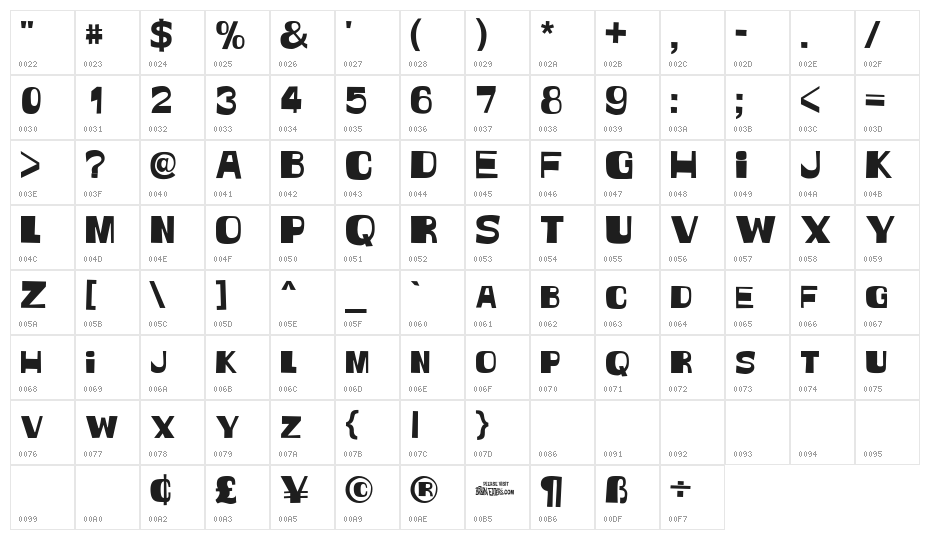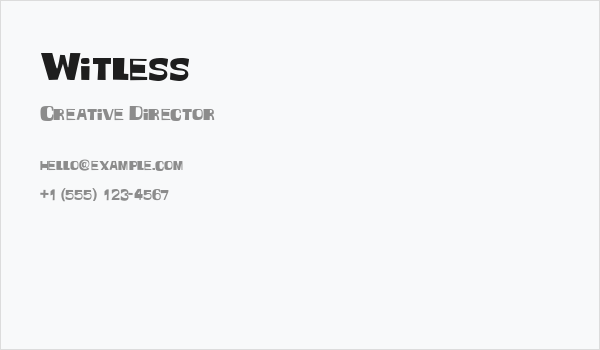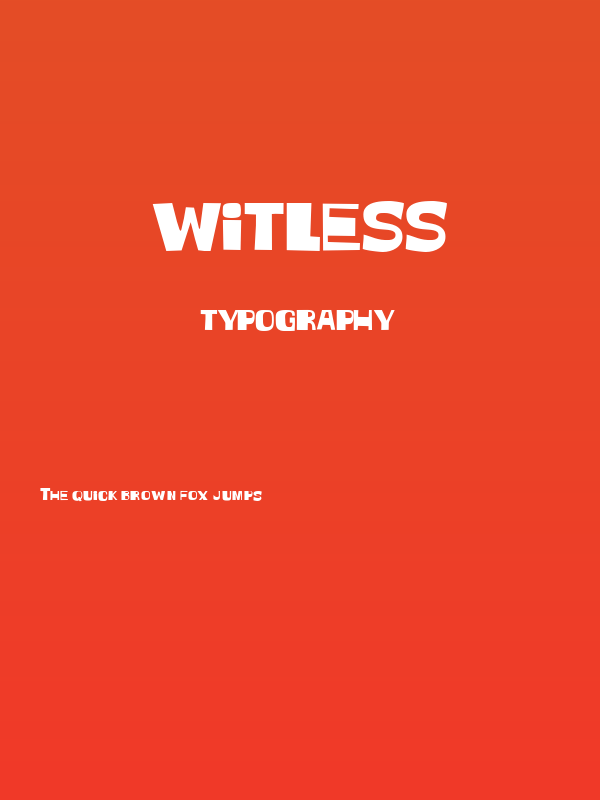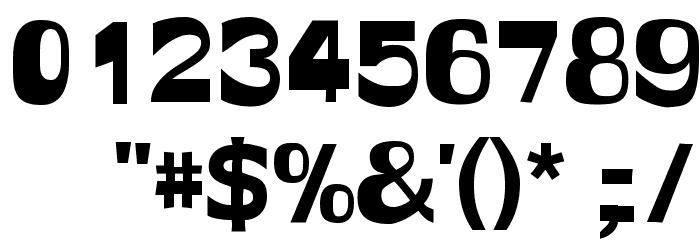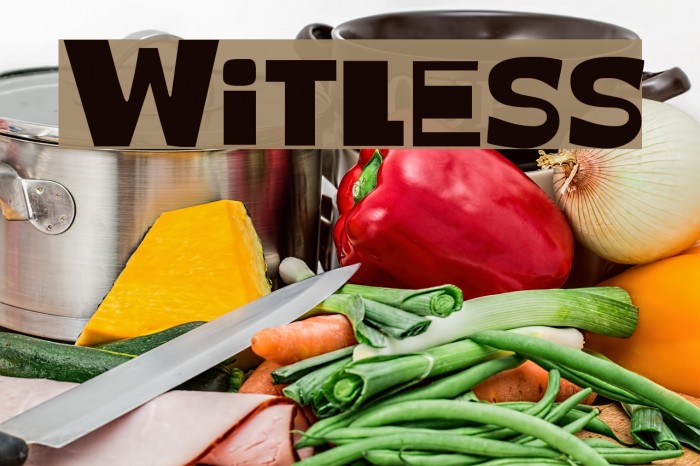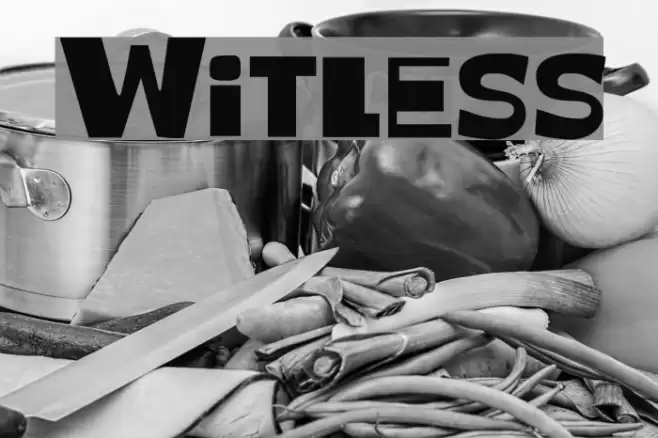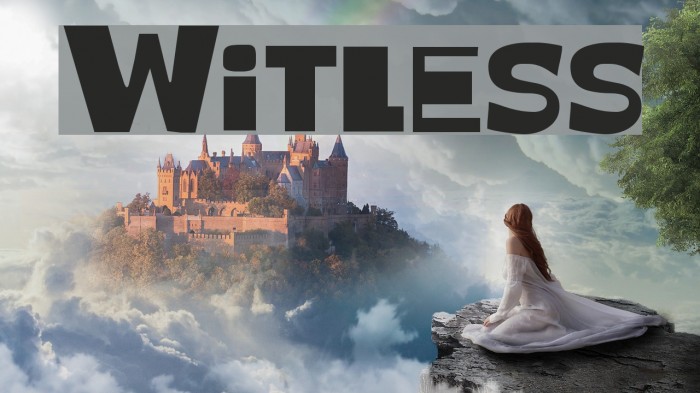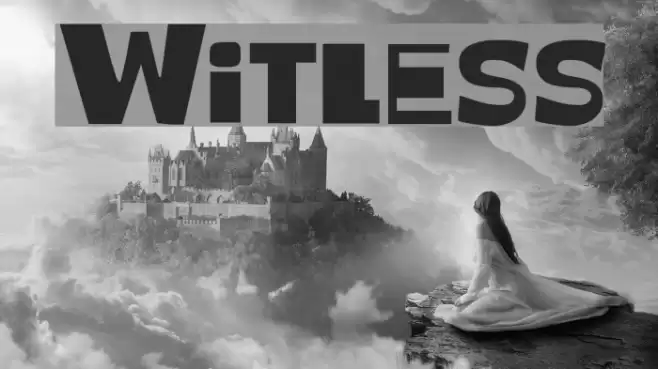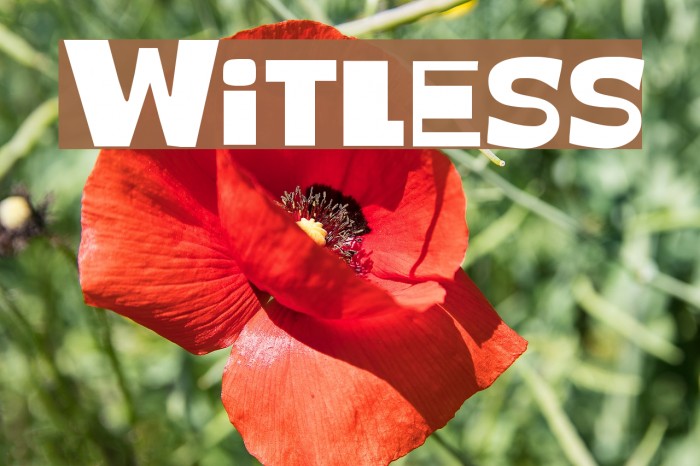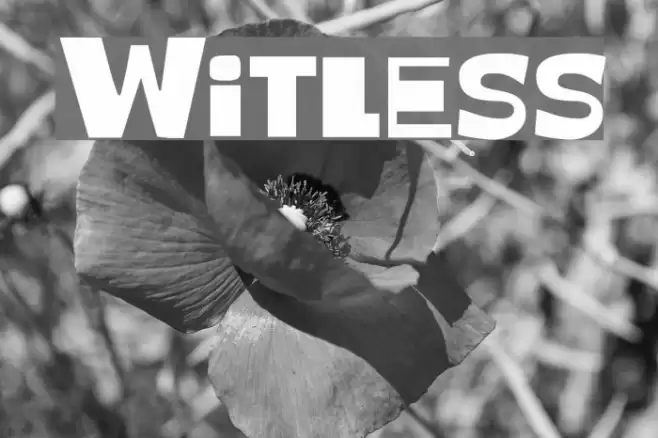
Witless Font
Witless Description
This font features bold, geometric letterforms with a strong presence. The uppercase characters are particularly striking, with thick strokes and a consistent weight that conveys a sense of stability and strength. The lowercase letters maintain the boldness, ensuring readability while adding a touch of modernity. The numerals are equally robust, matching the overall aesthetic of the alphabet. Special characters are designed with the same boldness, ensuring they stand out effectively. This font's design is ideal for making a statement, with its high contrast and wide character spacing contributing to its impactful appearance.
| Proposed Projects | Ideal for branding, headlines, posters, and any project requiring a bold, impactful typeface. |